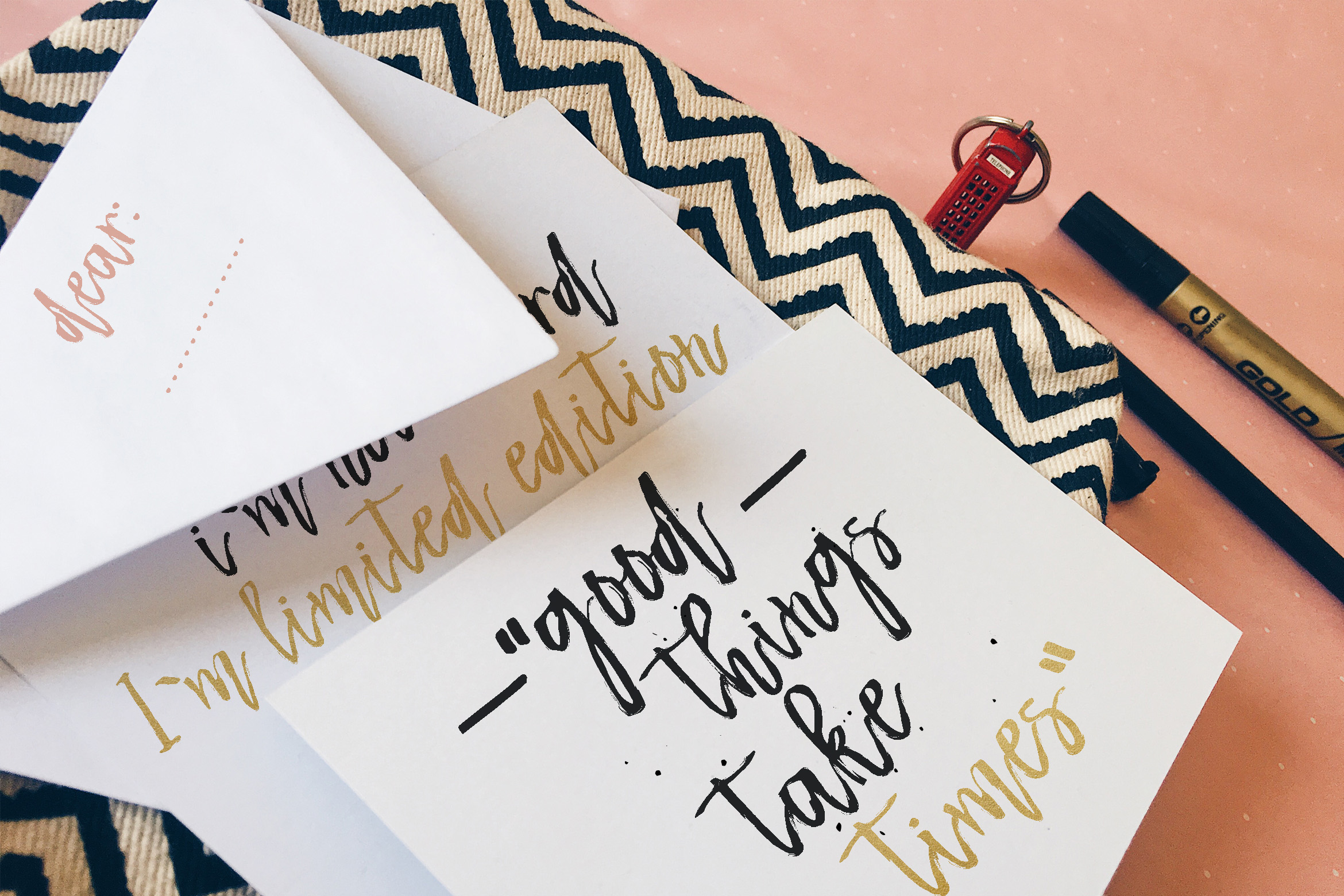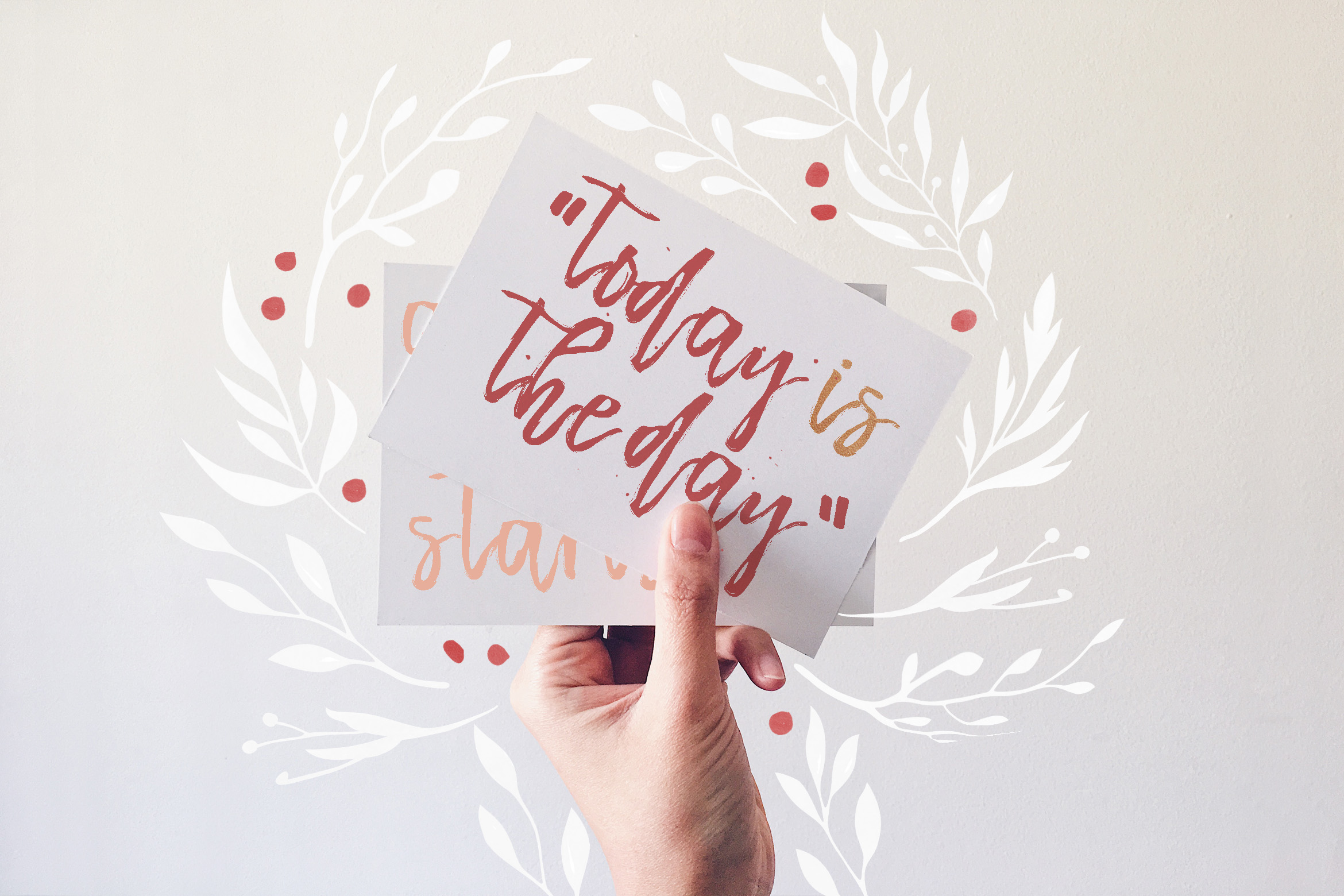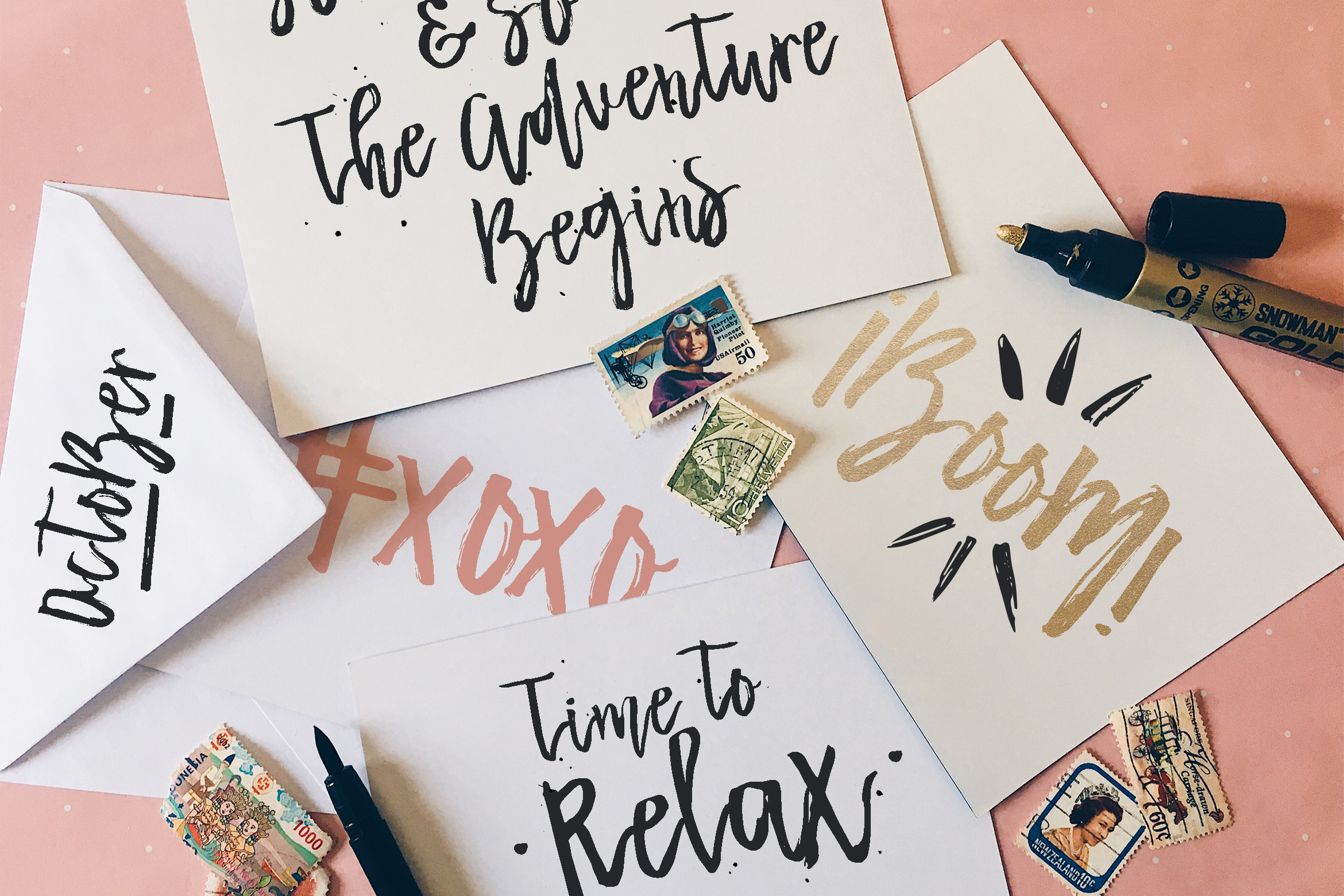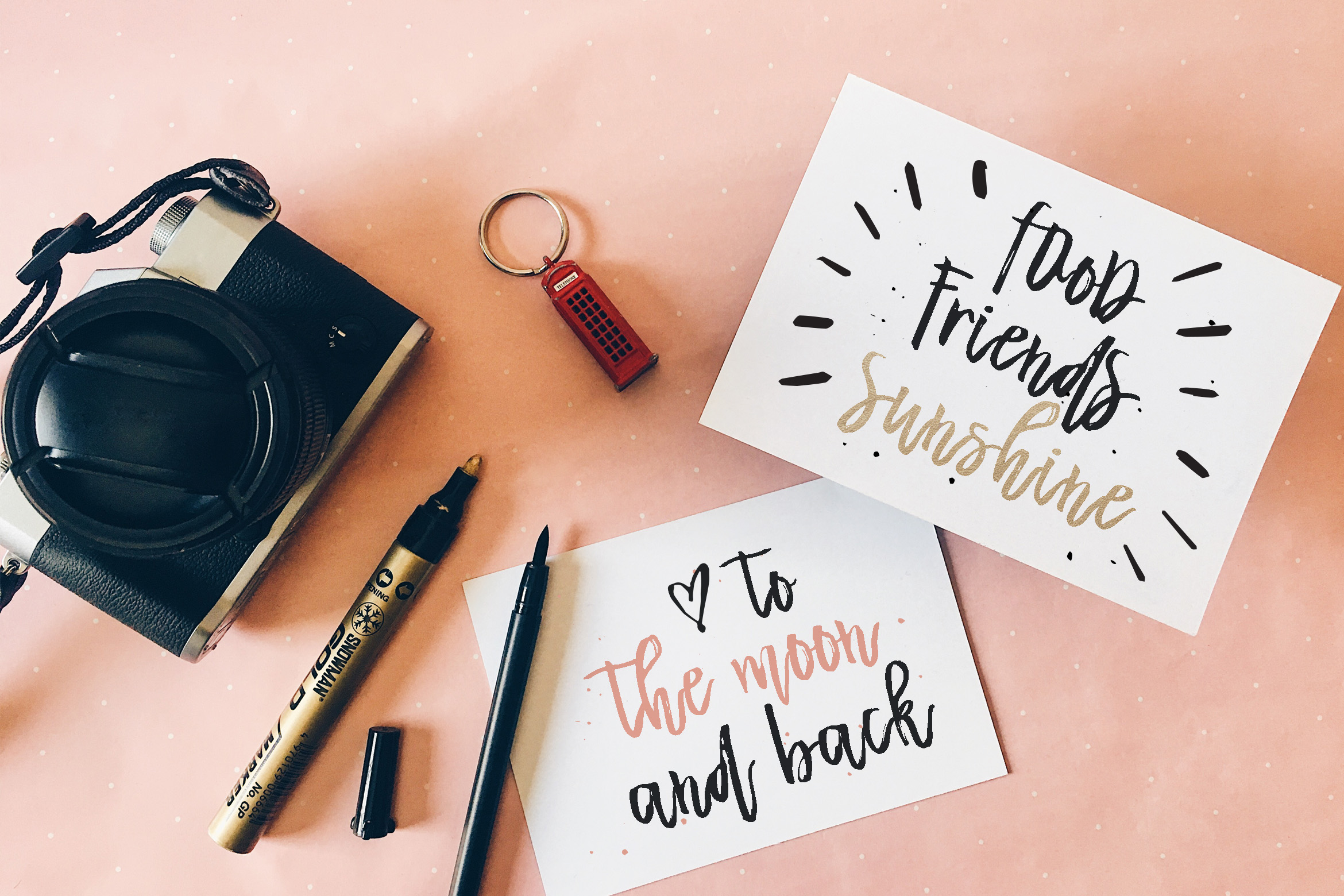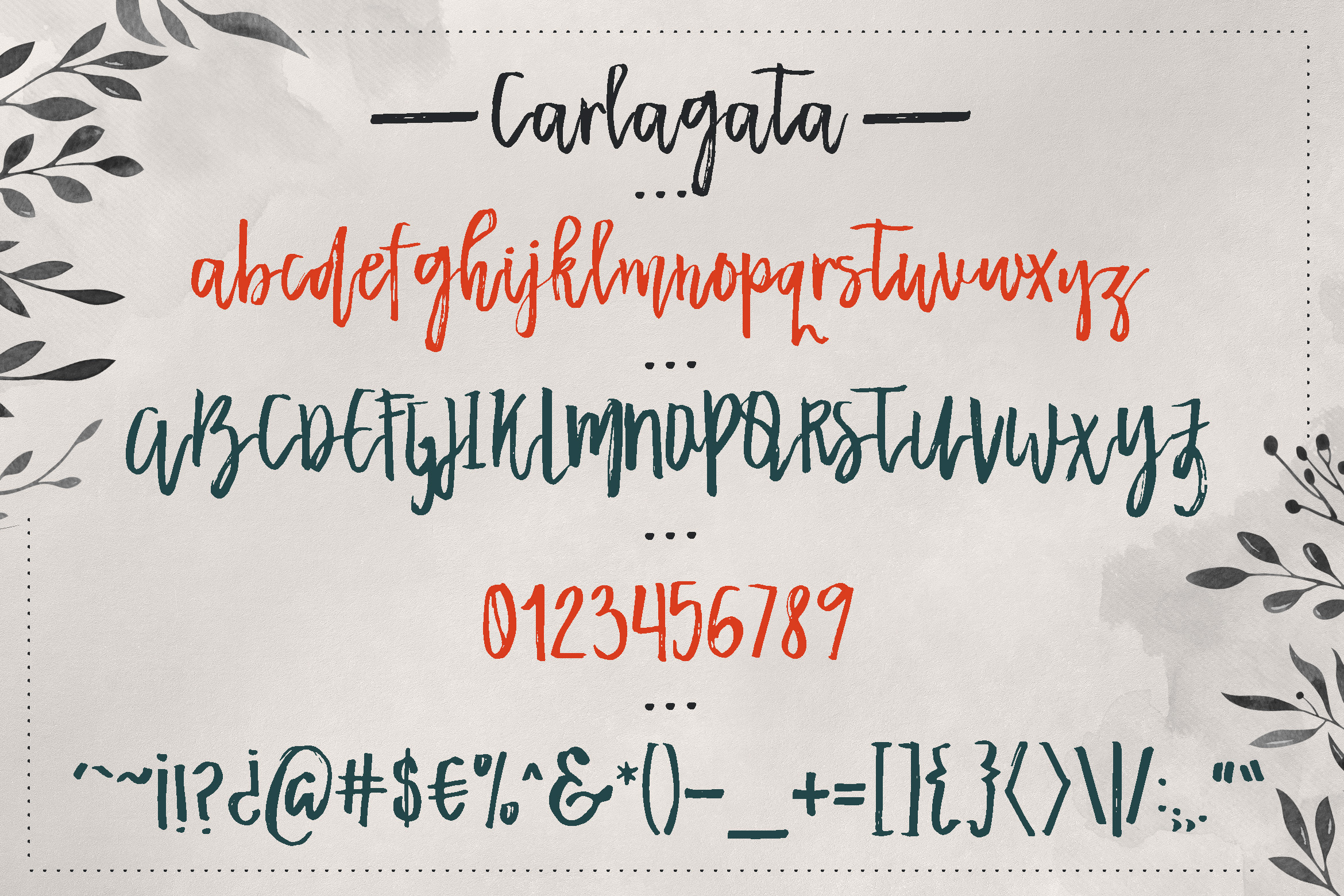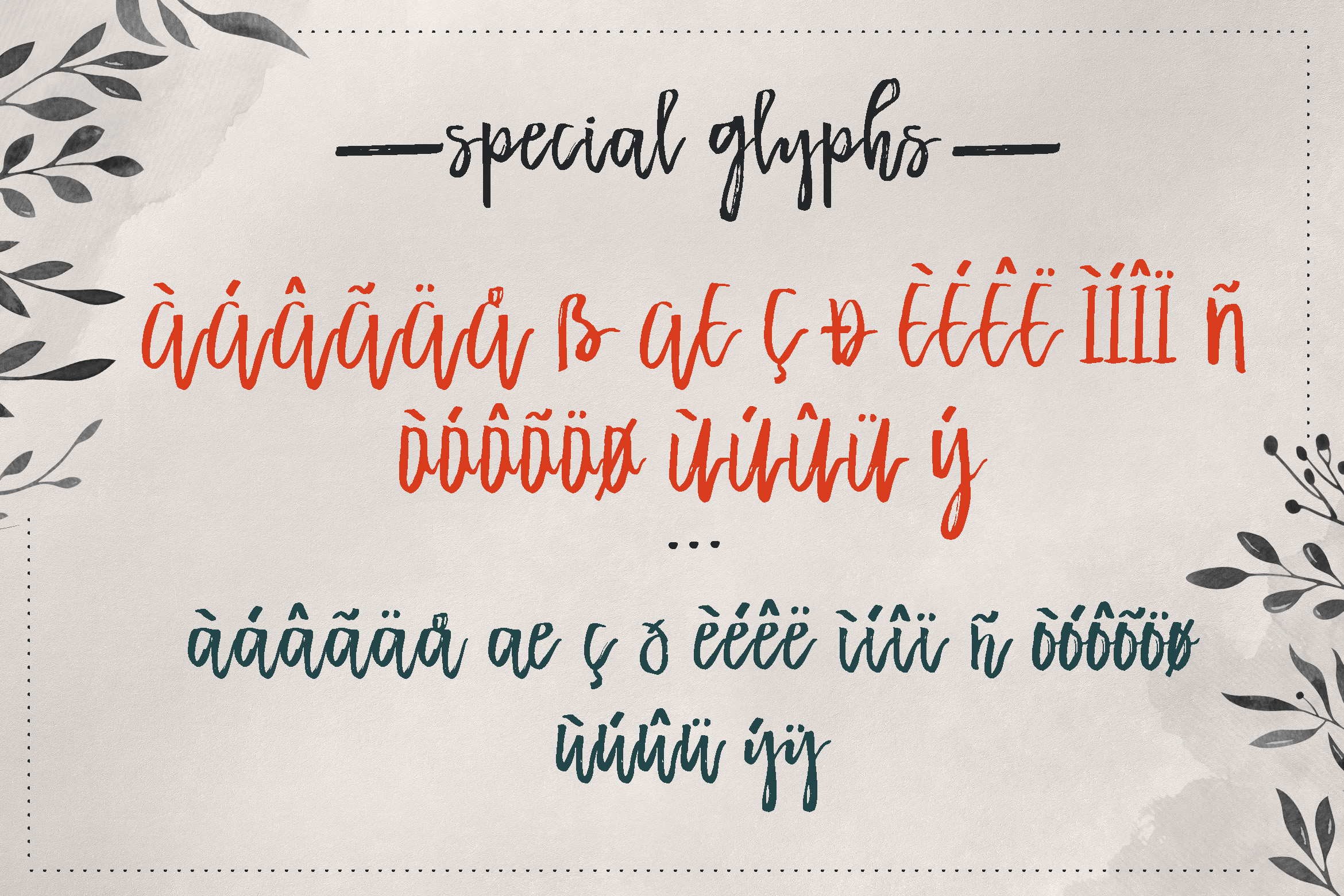
Discover the Perfect Brush for Your Next Design Project
Have you ever found yourself stuck on a design project, struggling to convey the perfect tone and style? Maybe it was a blog post that needed a touch of whimsy, or a logo that required a dash of personality. Whatever the challenge, we’ve got you covered with the Carlagata Font – a charming, casual handwritten typeface that’s ready to bring your ideas to life.
With its unique brush texture effect, Carlagata Font is perfect for a wide range of projects, from blog posts and logos to titles, posters, and even wedding cards. Plus, its extensive library of accented glyphs makes it a valuable tool for designers working with international languages. And as a bonus, the Carlagata Brush – a complementary typeface with a stunning brush contour effect – is included to give you even more creative possibilities. Whether you’re a seasoned pro or just starting out, the Carlagata Font is a must-have in your design toolkit.
Carlagata Font Key Features
- Font Family: Carlagata is a script font with a unique, handwritten feel.
- Unique Characteristics: The font features connected letters, swashes, and flourishes, giving it a personal and elegant touch.
- Language Support: Carlagata supports a wide range of languages, including Latin, Cyrillic, and Greek alphabets.
Carlagata Font Review
As a designer, I was excited to try out the Carlagata font. Here’s my honest review:
- ✨ Beautiful script font: Carlagata has a lovely, elegant feel to it. It’s perfect for creating a luxurious or vintage look in your designs.
- ✨ Great for titles and headings: The font is bold and eye-catching, making it ideal for use in titles, headings, and other prominent text elements.
- ✨ High-quality glyphs: The font has a wide range of glyphs, including accents and special characters, which makes it a great choice for designers who need to work with multiple languages.
- ⚠️ Limited legibility at small sizes: While the font is beautiful, it can be difficult to read at small sizes. This makes it less suitable for use in body text or other areas where readability is crucial.
- ⚠️ Not ideal for long blocks of text: The font’s elegance comes at the cost of readability. It’s not the best choice for use in long blocks of text, as it can be fatiguing to read.
Overall, I think the Carlagata font is a great choice for designers who want to add a touch of elegance to their designs. However, it’s not a one-size-fits-all solution, and it’s best used in moderation and in conjunction with other fonts.
- Pair the Carlagata Font with other fonts to create a unique and stylish look.
- Use the Carlagata Font for headings and titles to create a clear hierarchy of information.
The Carlagata Font is perfect for:
- Designing wedding invitations and stationery.
- Creating a vintage or retro-inspired look.
- Adding a touch of elegance to business presentations and reports.